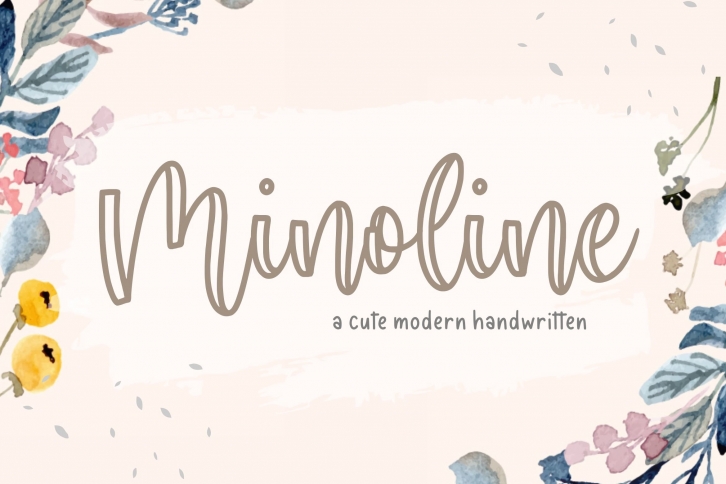
Minoline Cute Modern Calligraphy is a beautiful font that was designed by Balpirick. It's a great choice for designers and creatives who need such a font. It was released on November 2, 2020 and the file size is 4.24 MB. Minoline Cute Modern Calligraphy may give a more youthful, expressive and casual look to your project. It is a very beautiful, refined, elegant, and high-quality font.